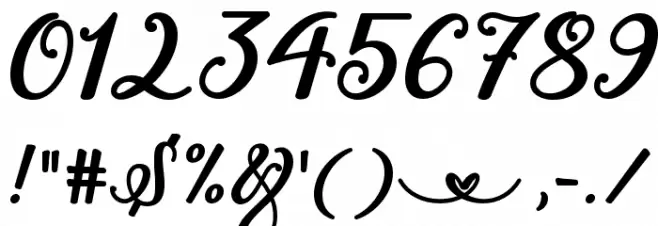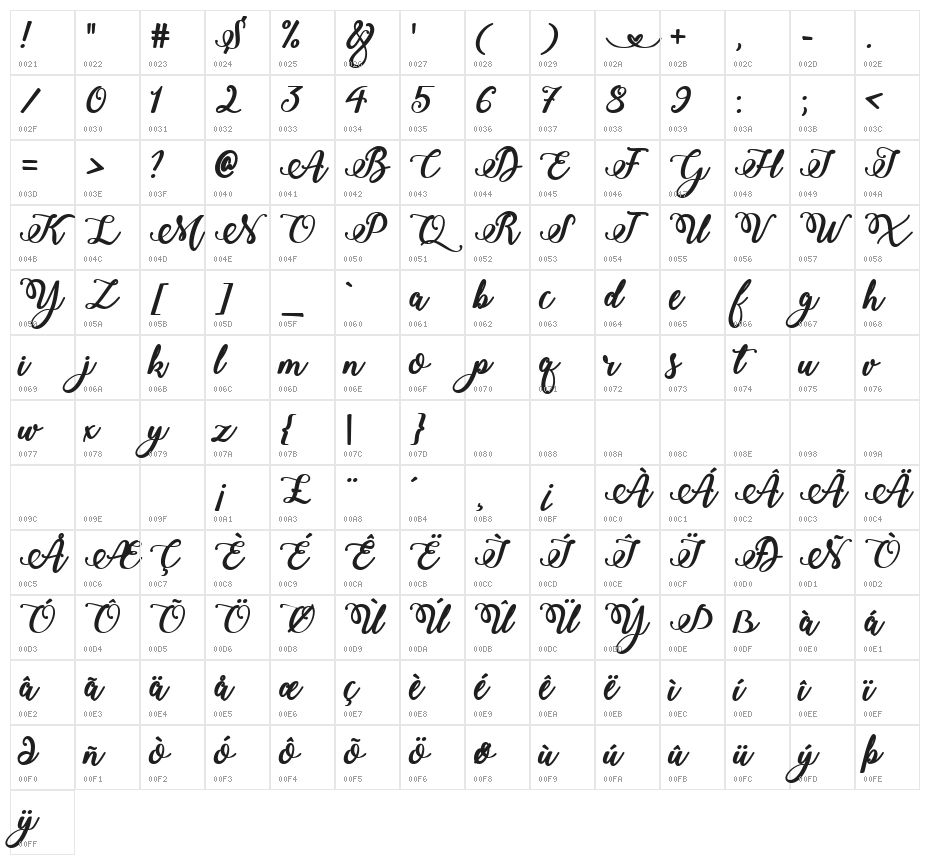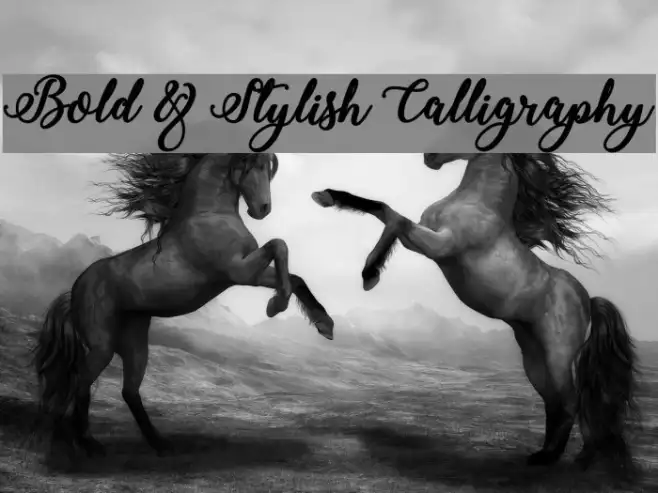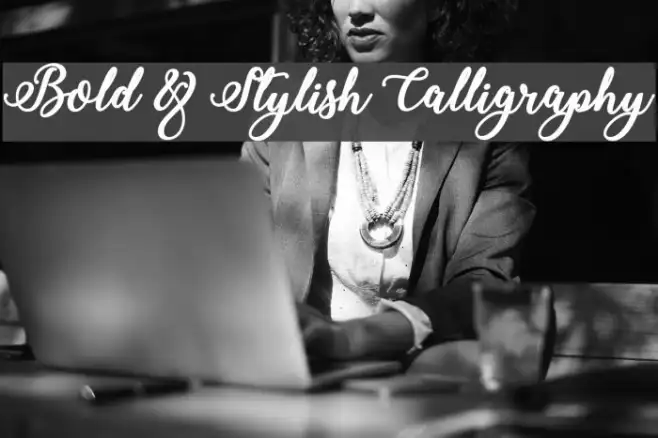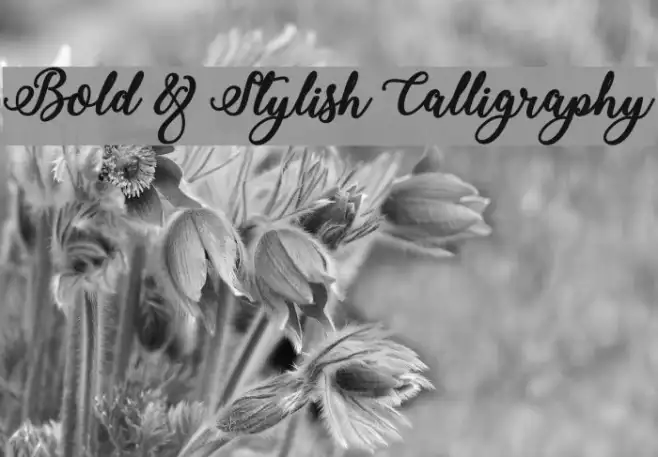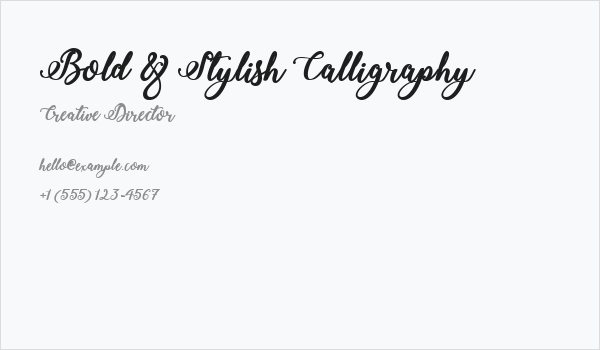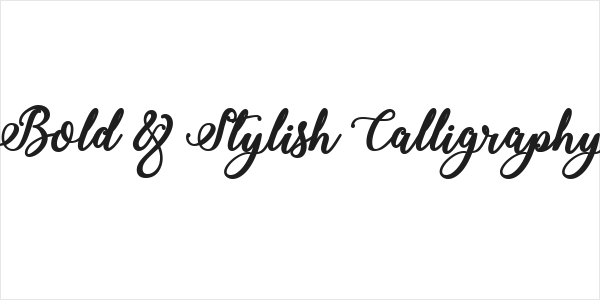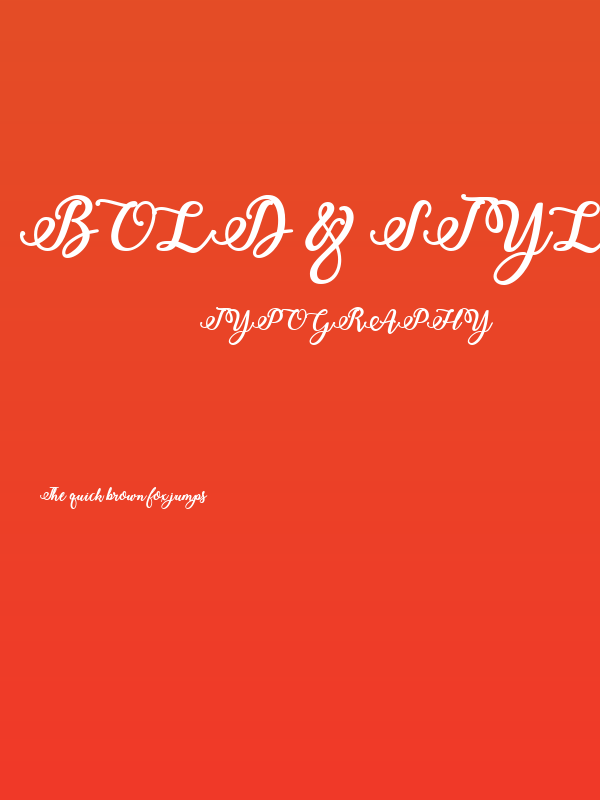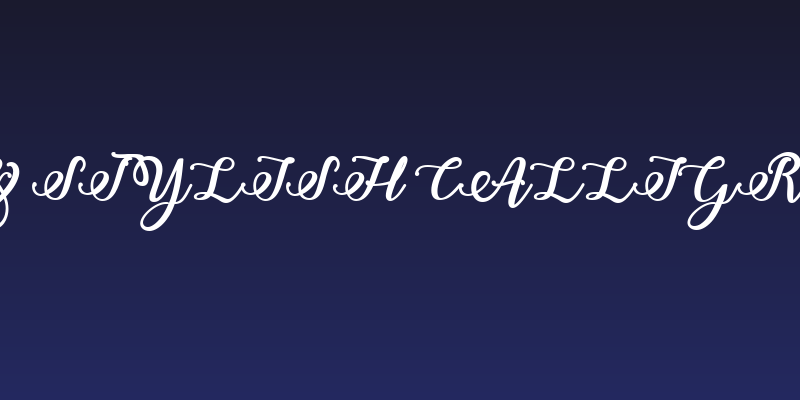
Bold & Stylish Calligraphy Font
Bold & Stylish Calligraphy Description
This font exudes a bold and stylish calligraphic flair, characterized by its flowing, cursive strokes that convey elegance and sophistication. The uppercase letters are intricately designed with sweeping curves and loops, while the lowercase letters maintain a consistent fluidity, enhancing readability despite their decorative nature. The numerals and special characters are crafted to match the overall aesthetic, ensuring a cohesive look across all text elements. This font's bold weight and artistic style make it suitable for projects that require a touch of elegance and creativity.
| Use Case | Logos, Invitations, Decorative Text |
| Proposed Projects | Ideal for wedding invitations, branding, logo design, and elegant stationery. |